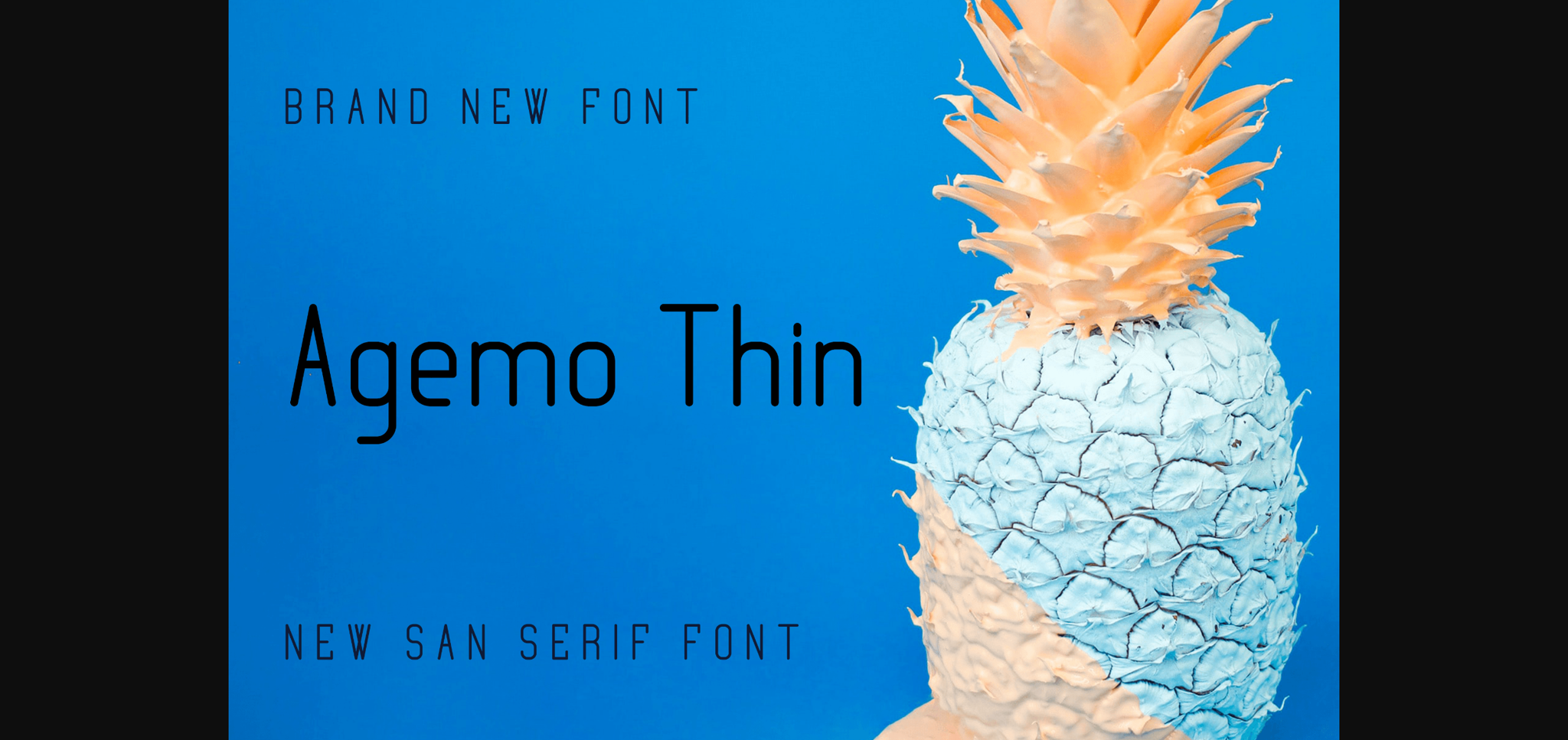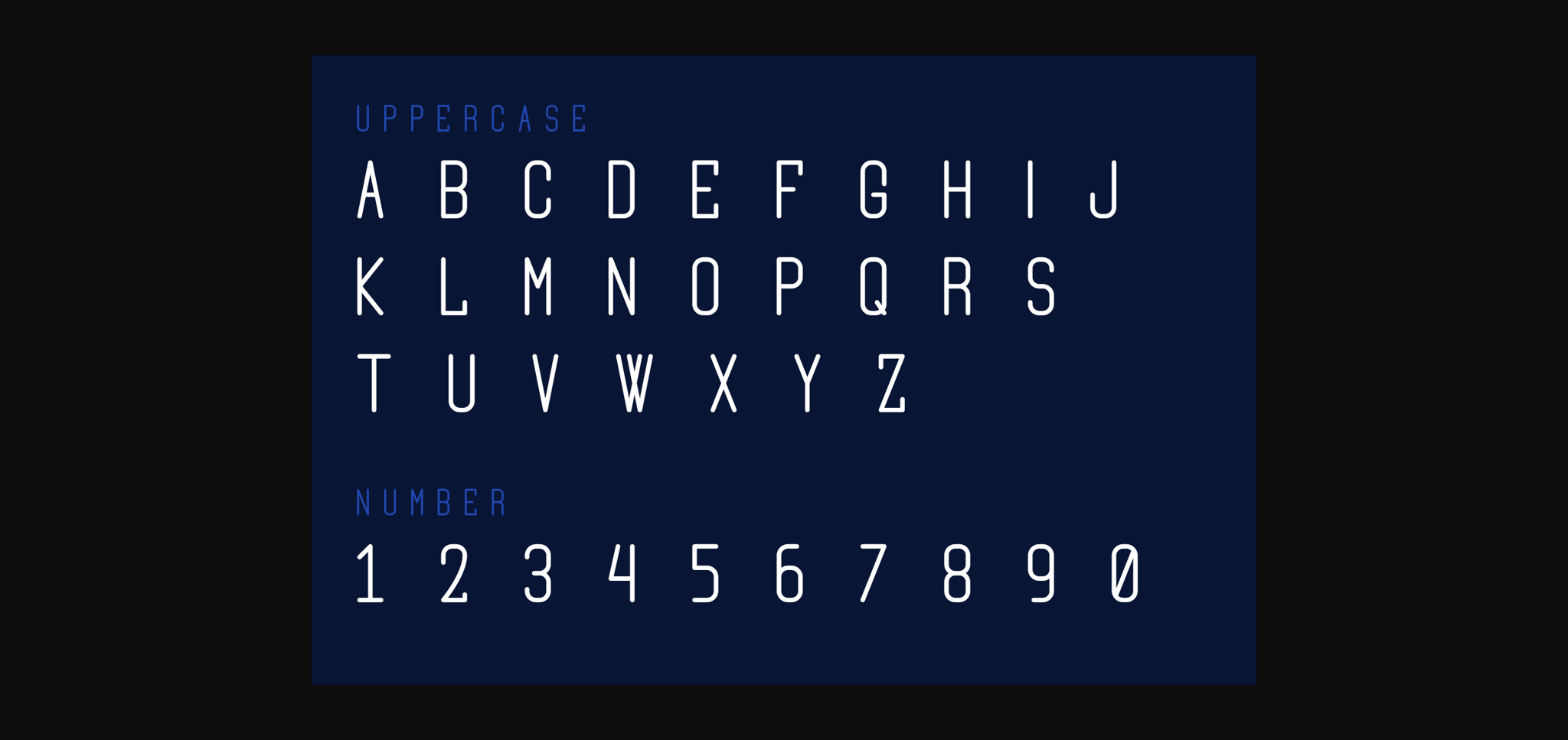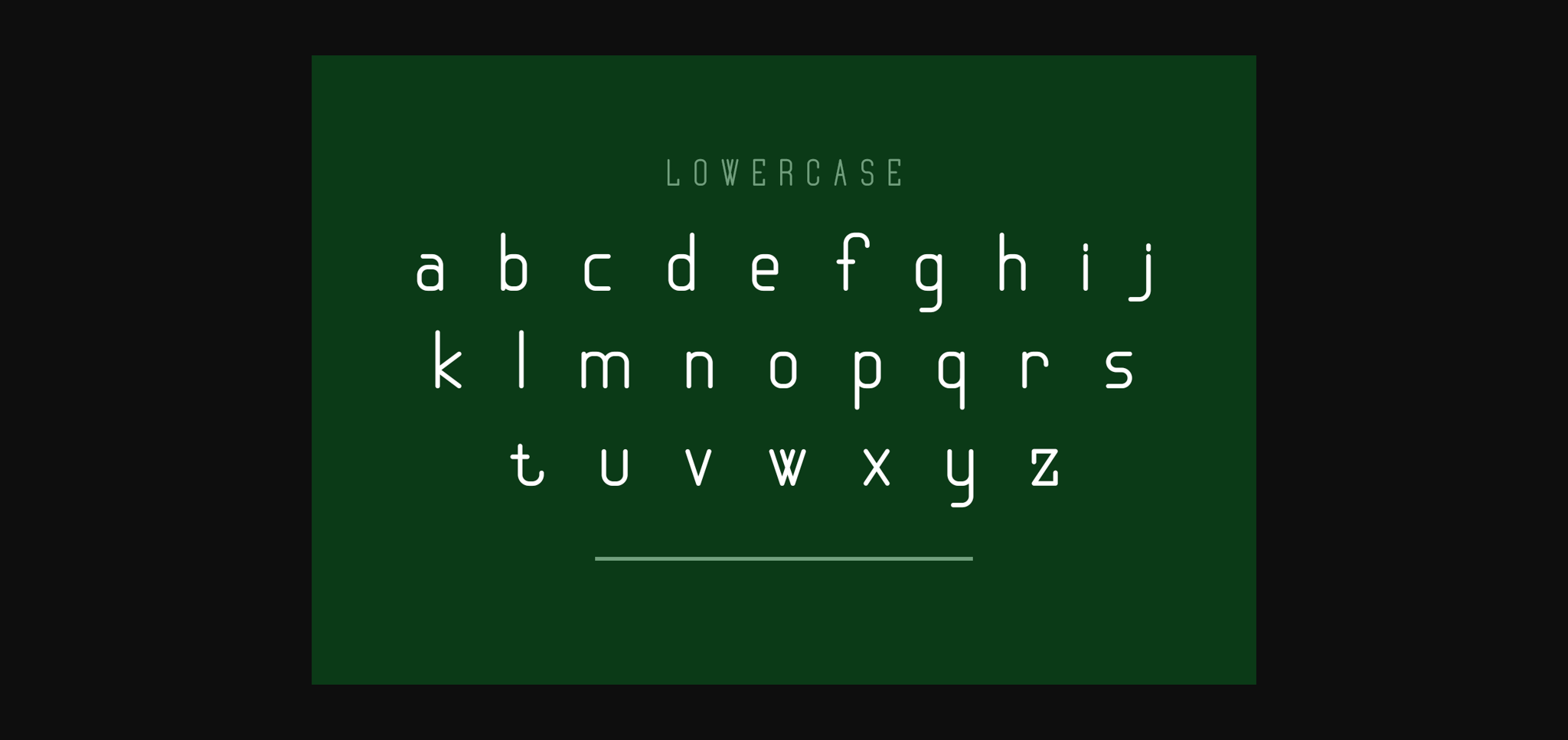
About Agemo Thin Font
Agemo Thin is a stylish and cool sans serif font. It is the best choice for creating eye-catching logos, branding, and quotes. Every letter has a unique and beautiful touch, which will make your design come alive!